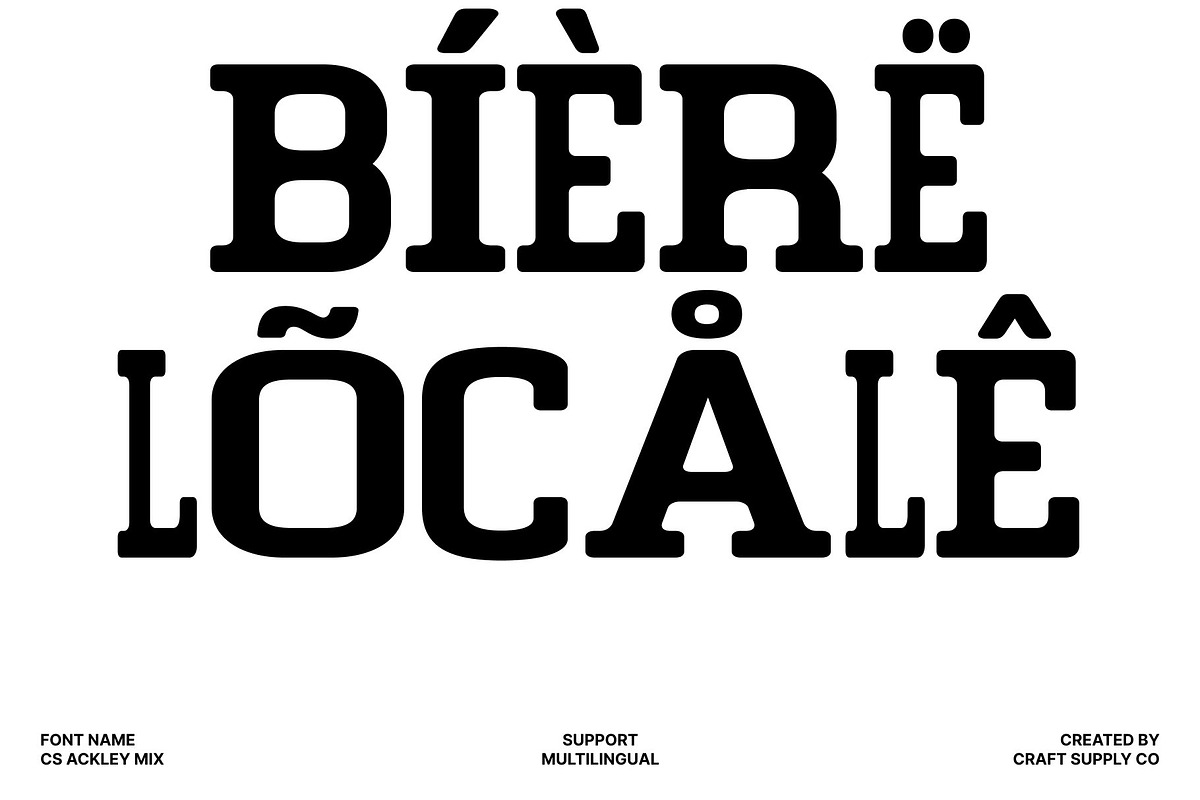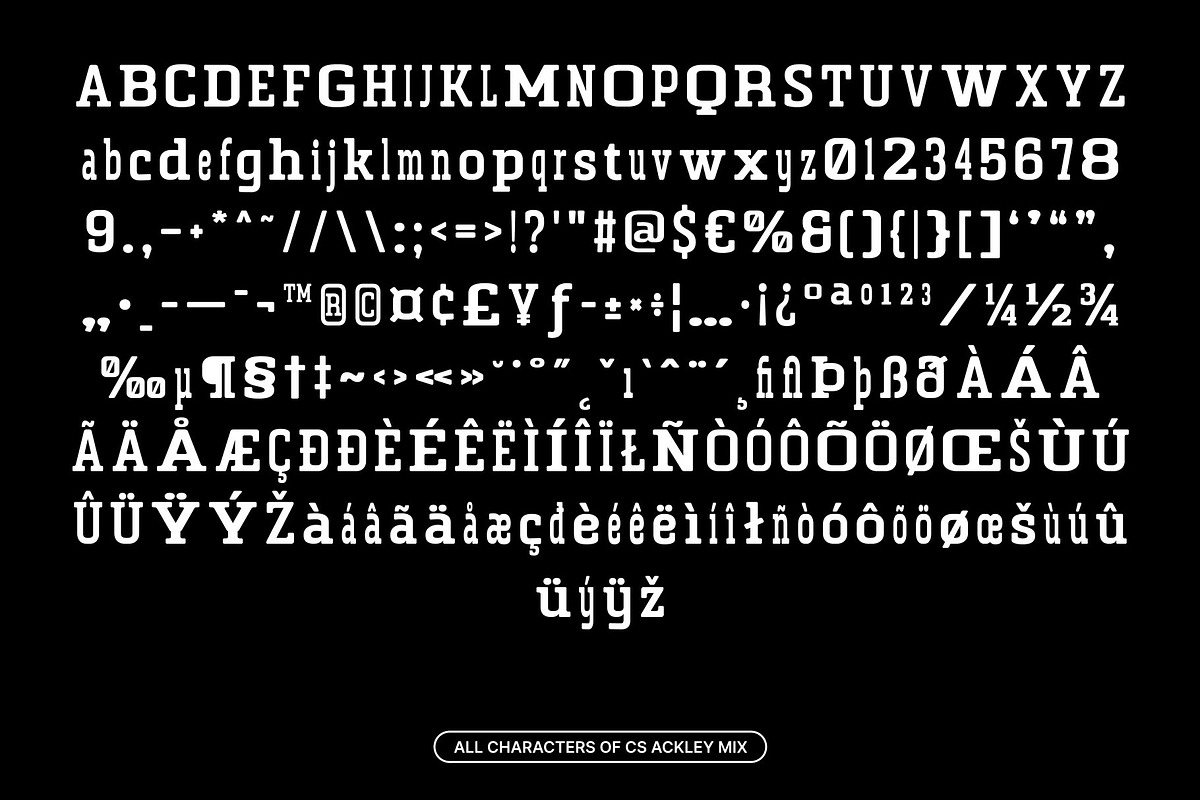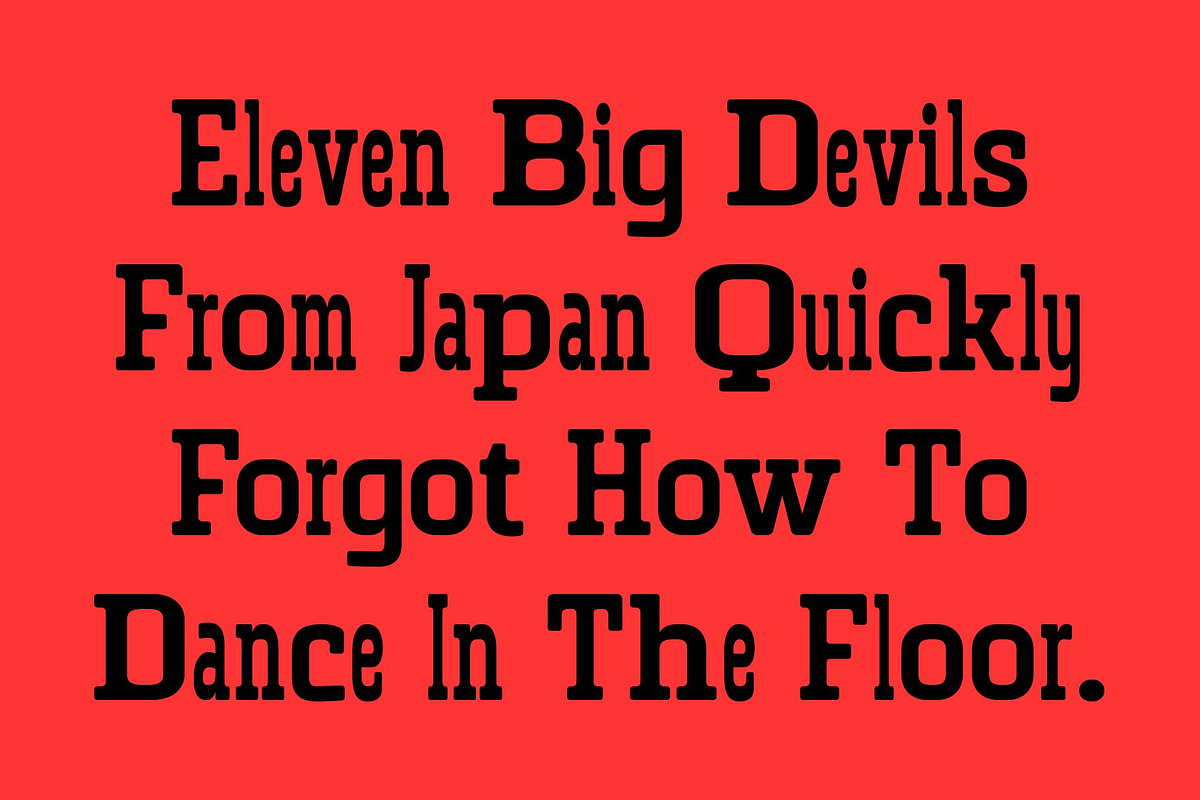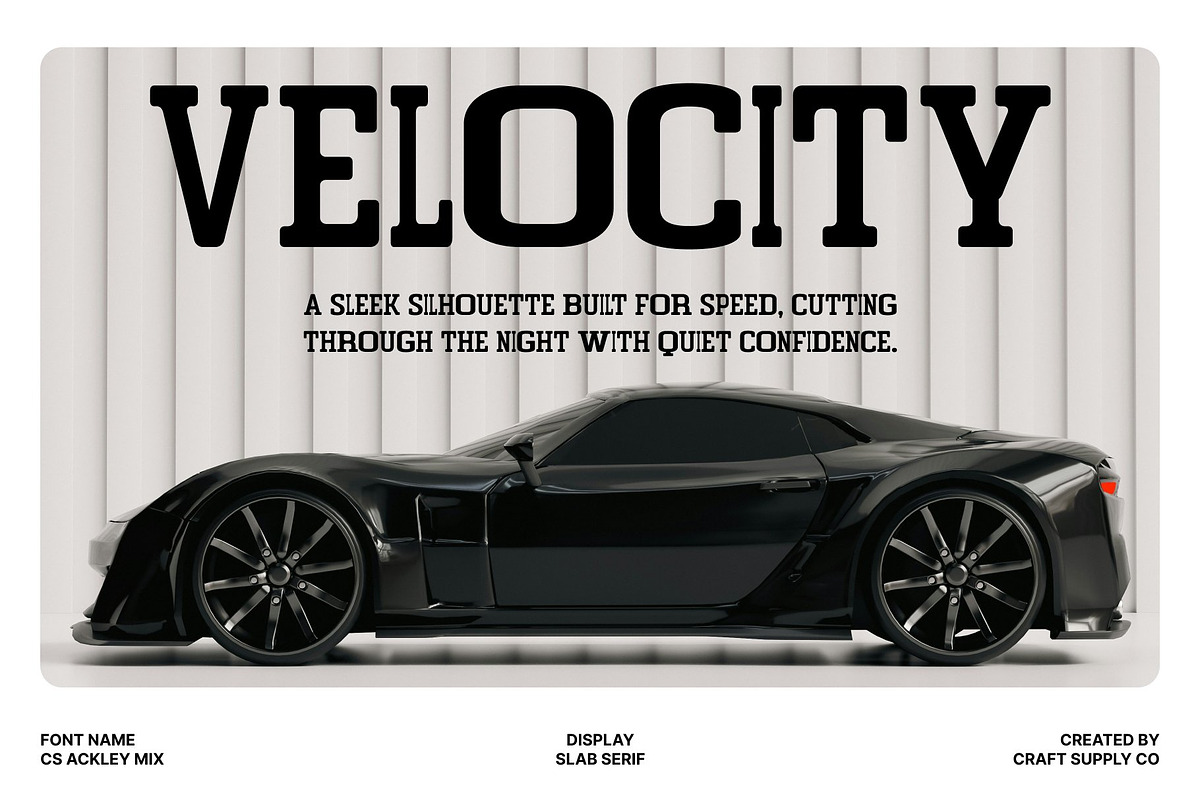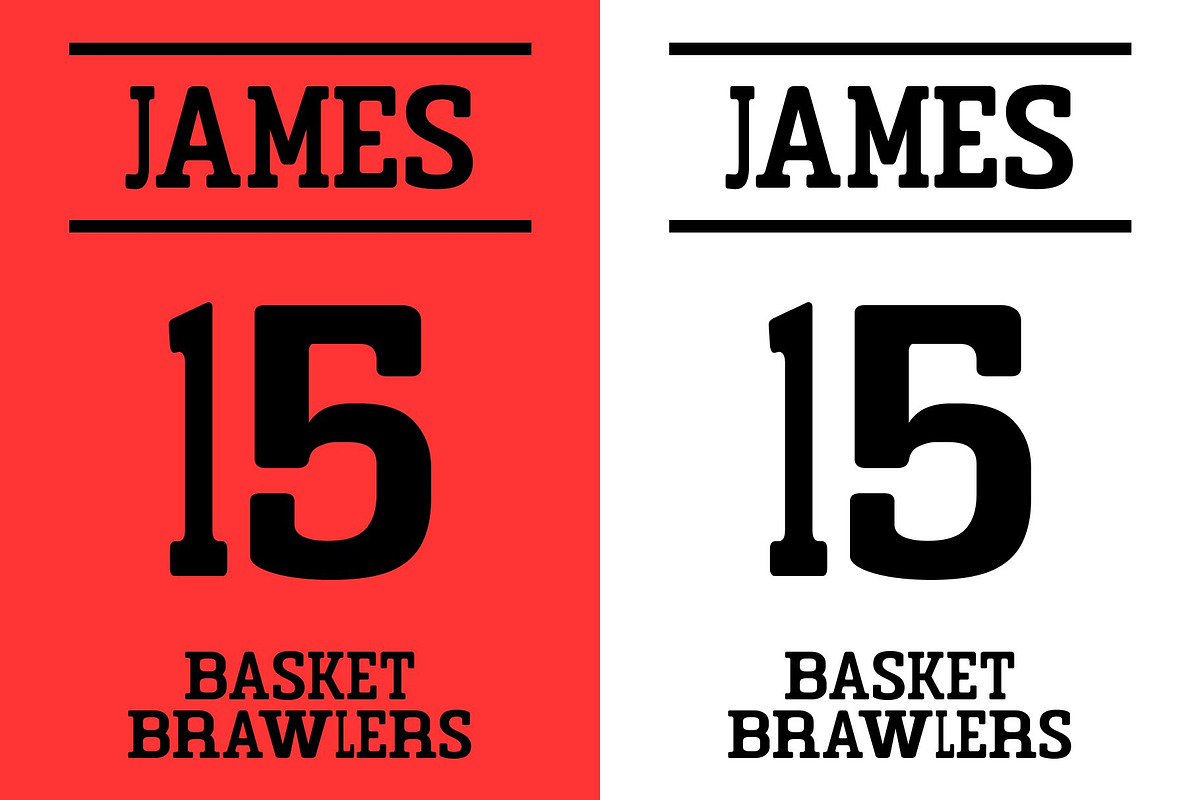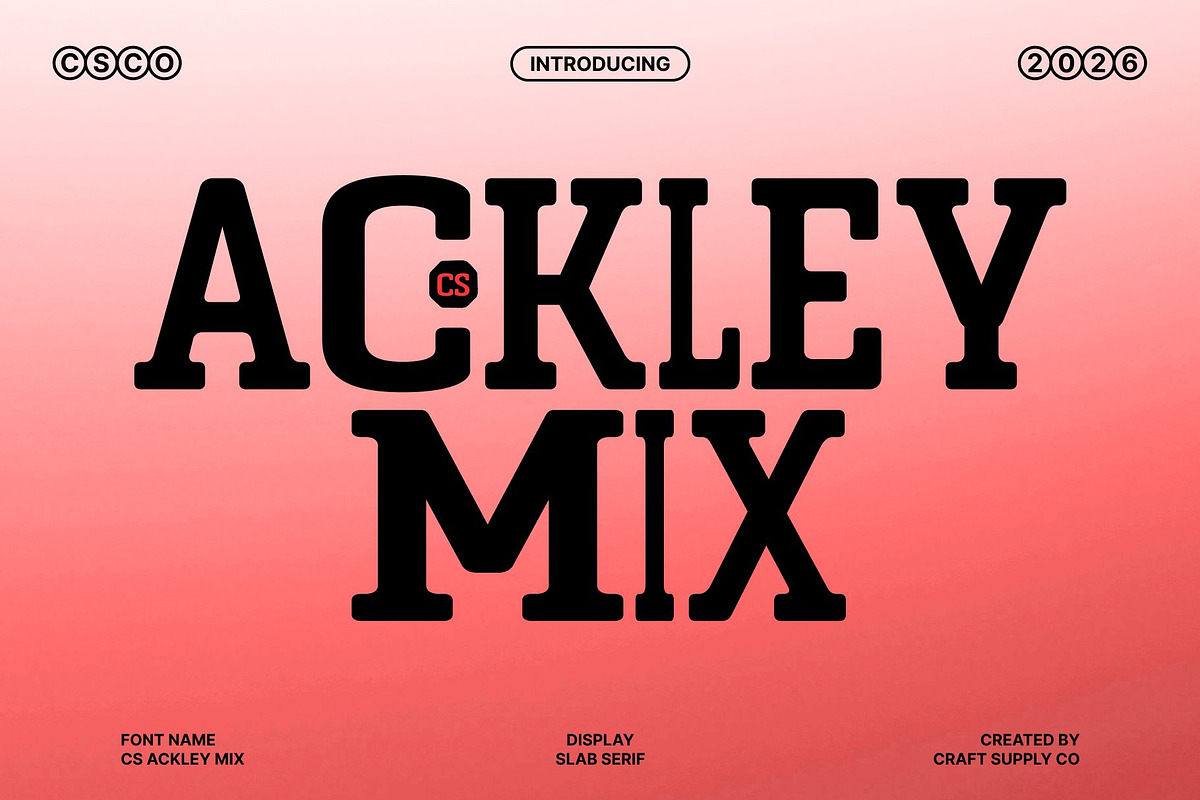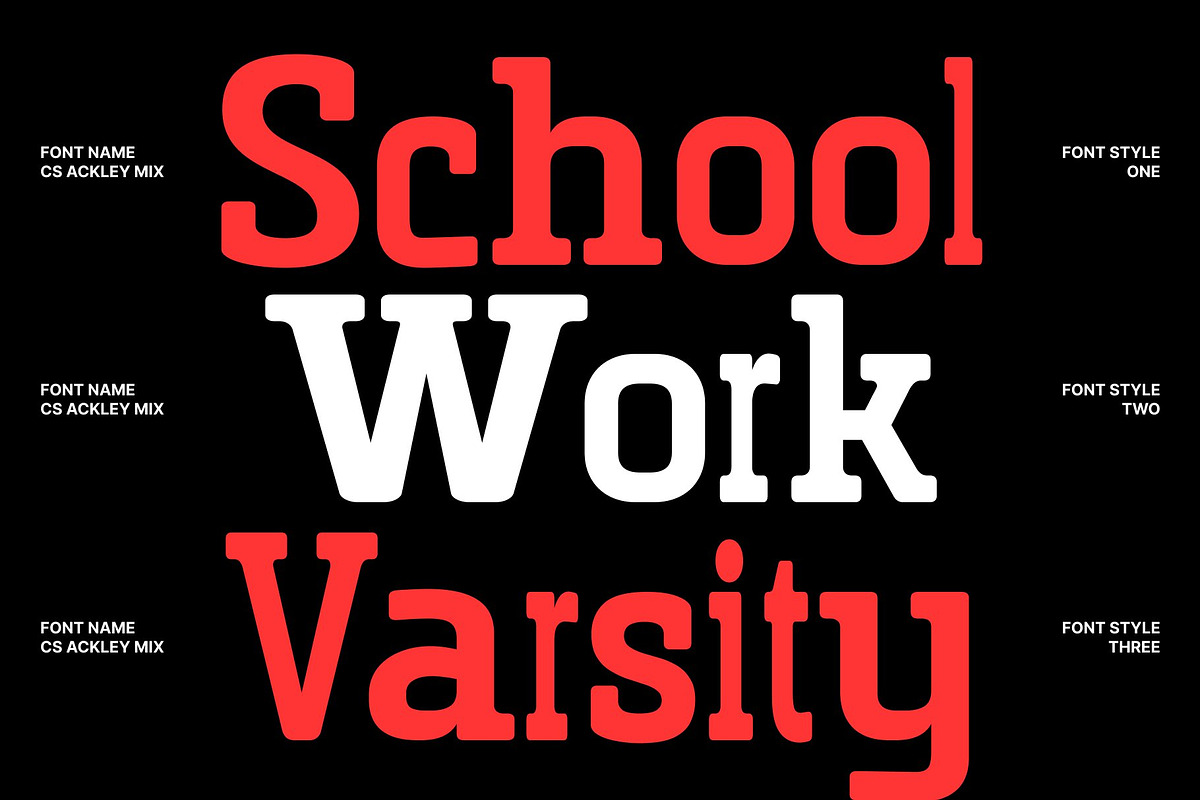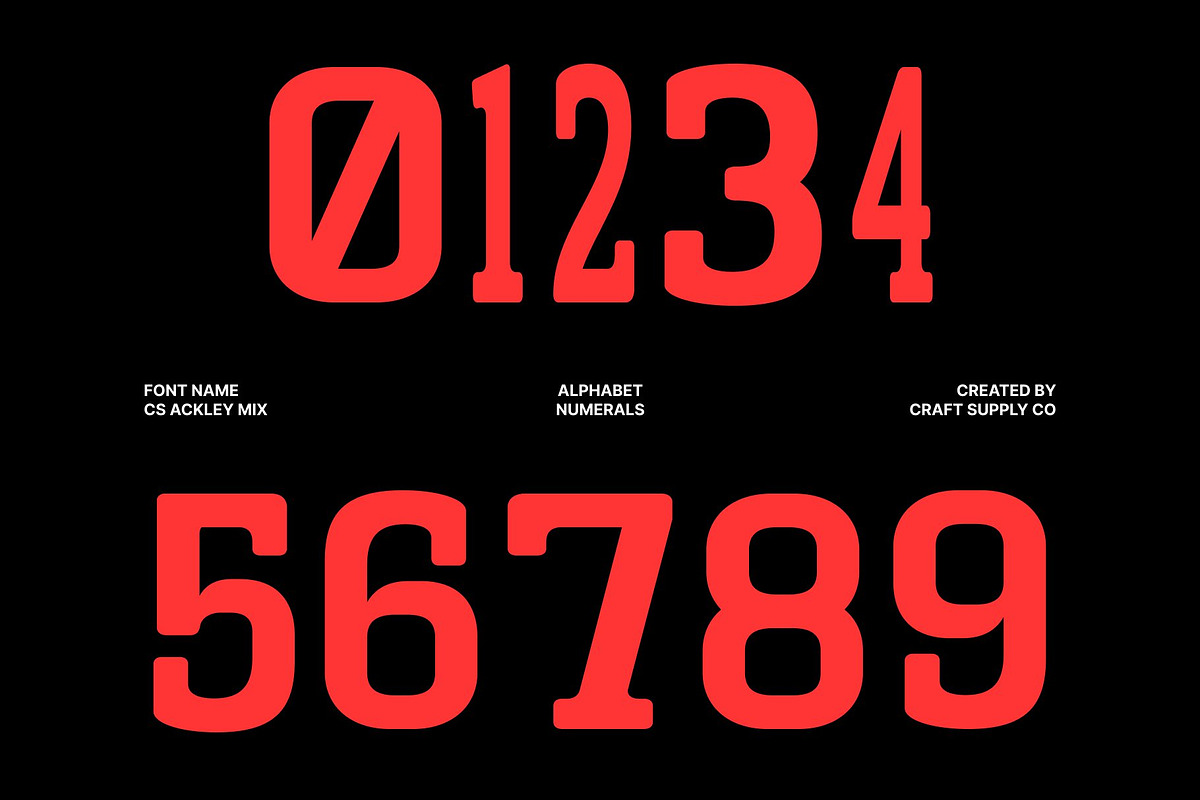
CS Ackley Mix
CS Ackley Mix – Bold Slab Serif Font: Industrial Strength with Modern Impact
Bold Slab Serif with Mixed Style Character This is a bold slab serif font designed to project strength, confidence, and industrial power. Built with thick blocks, sturdy serifs, and commanding proportions, this typeface introduces a distinctive mixed-style concept that adds contrast and visual rhythm to every composition.
A Powerful Blend of Bold and Regular Letterforms The defining feature of this font lies in its creative fusion of bold and regular styles. This mixed-weight approach creates dynamic visual contrast, enhancing hierarchy and making text feel more energetic and expressive. The balance between heavy forms and structured spacing allows the font to maintain both strong personality and excellent readability across different layouts.
Industrial Aesthetic with Contemporary Precision This font embraces an industrial-inspired aesthetic through its durable slab serifs and sturdy geometric construction. Its modern proportions create a clean and organized appearance while preserving a rugged and assertive tone. This combination gives designs a sense of reliability, authority, and bold professionalism that immediately captures attention.
Perfect for Branding, Sports, and Large-Scale Displays From logos and packaging to billboards, posters, and sports graphics, this font excels in projects that require maximum visibility and visual power. Its sharp readability ensures messages remain clear even from a distance, making it ideal for impactful headlines and promotional materials.
CS Ackley Mix One
CS Ackley Mix Two
CS Ackley Mix Three